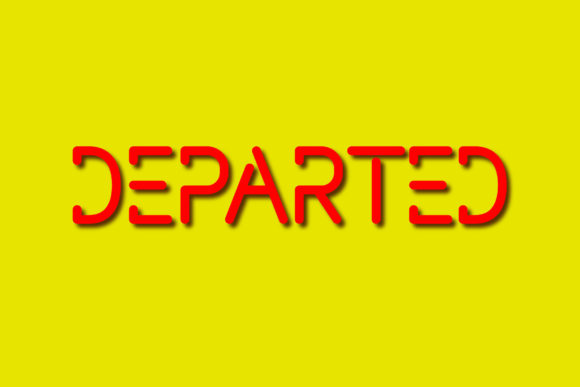
**Departed: The Font That Transcends the Mundane**
Immerse yourself in the captivating embrace of Departed, a display font that breathes life into your creative endeavors. Its sleek, minimalist lines and techno-infused essence evoke a sense of effortless sophistication, empowering you to craft designs that resonate with your audience.
Unleash your imagination and explore the boundless possibilities that Departed holds. Its clean and modern aesthetic lends itself seamlessly to a multitude of applications, from captivating logos to captivating web designs. Whether you seek to elevate your branding or inject a touch of futuristic flair into your creations, Departed is the font that knows no limits.
Indulge in the unparalleled versatility of Departed. Its ability to adapt effortlessly to any design concept makes it the perfect companion for a wide range of projects. Craft alluring posters that command attention, design websites that exude professionalism, or create social media graphics that ignite engagement.
With Departed, the ordinary becomes extraordinary. Its meticulously crafted characters exude a charm that captivates and captivates. Experience the transformative power of a font that empowers you to express yourself with unparalleled clarity and style.
**Reasons to Embrace Departed:**
* Clean and modern aesthetic for timeless appeal
* Techno-inspired lines for a futuristic touch
* Unrivaled versatility for limitless applications
* Effortless sophistication that elevates any design